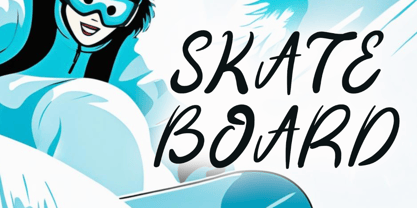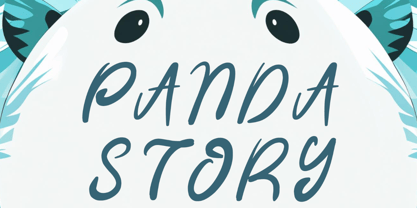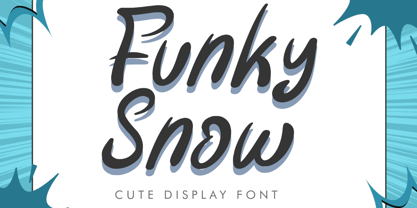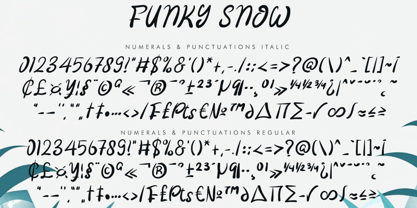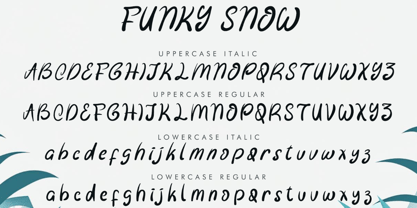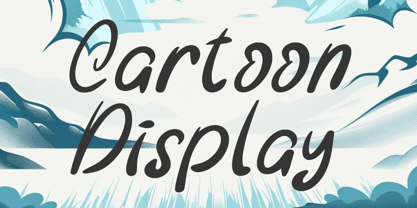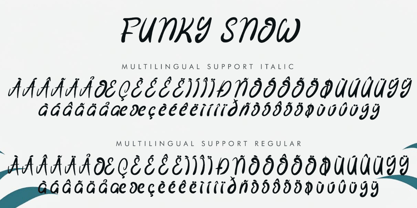
Funky Snow Italic
The Funky Snow Italic Font Family was designed by Isroni Yoga Prasetya and published by Yoga Letter. Funky Snow Italic contains 2 styles and family package options. More about this family
"Funky Snow" is a unique display font. It features regular and italic styles. It features uppercase and lowercase letters, numerals, punctuations, and multilingual support. It's perfect for Christmas, Thanksgiving, winter, Easter, spring, Valentine's Day, cartoons, summer, holidays, gifts, photography, YouTube, vacations, logos, stickers, weddings, magazines, and more.